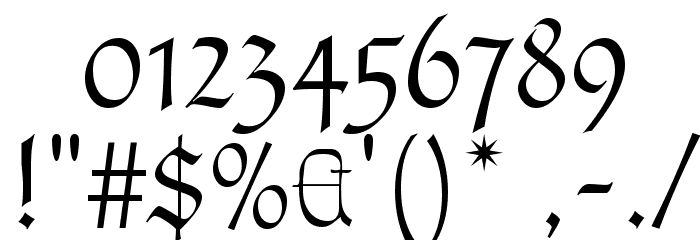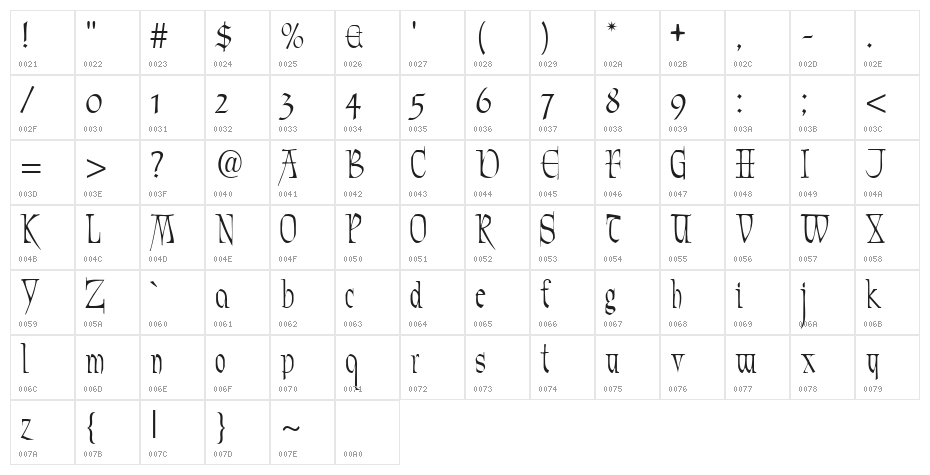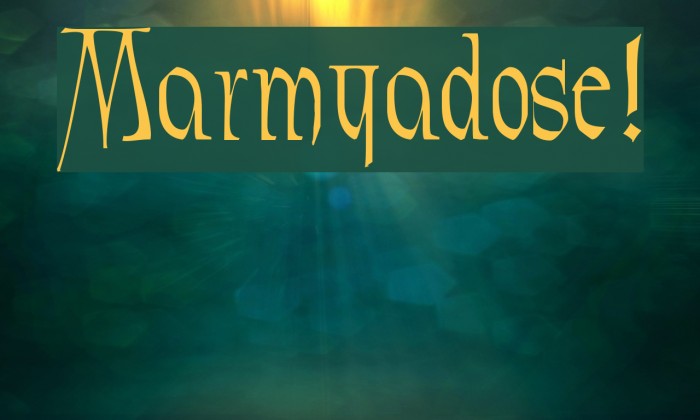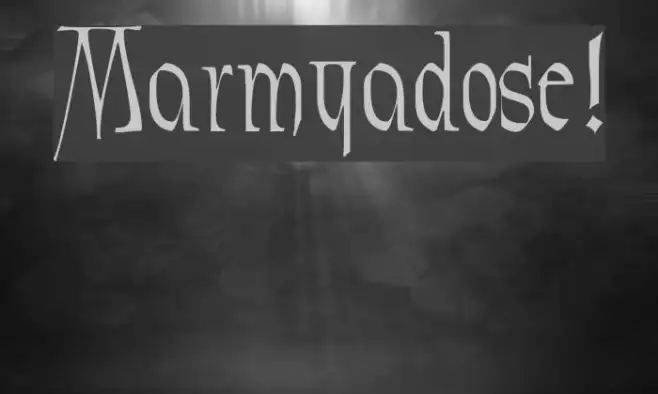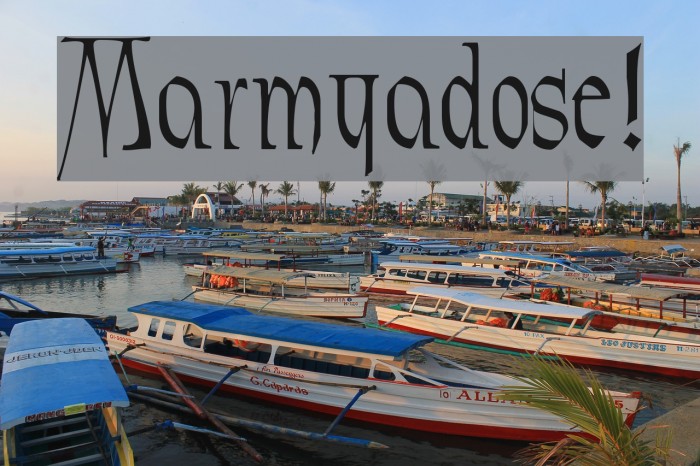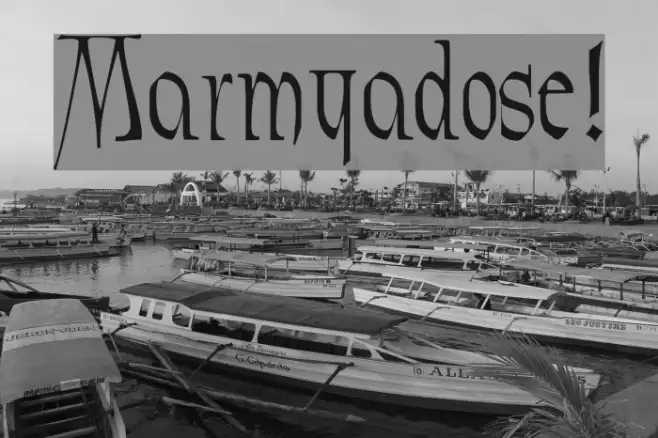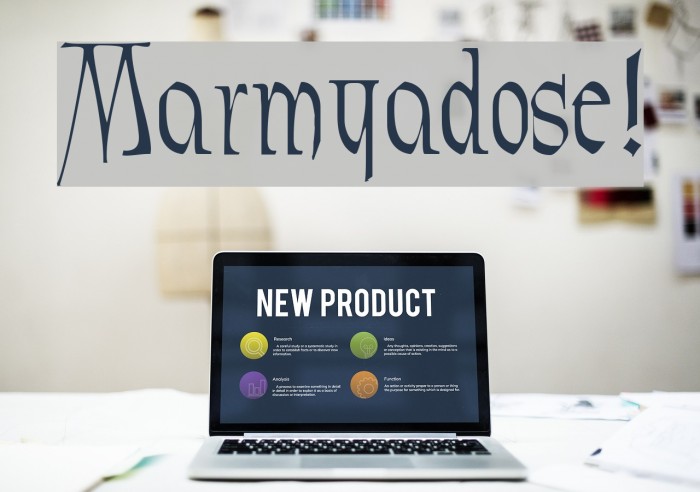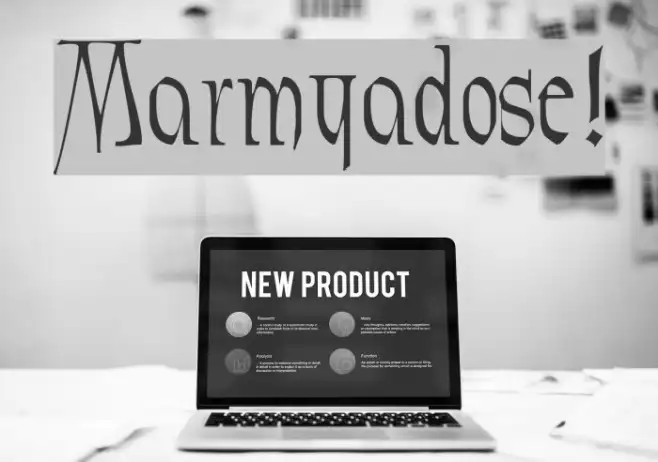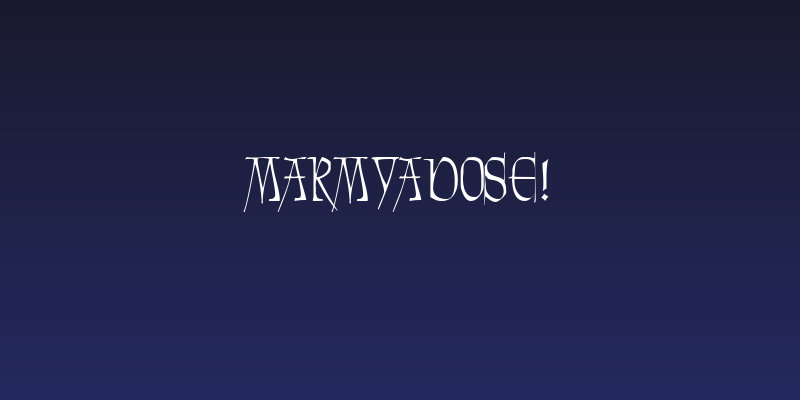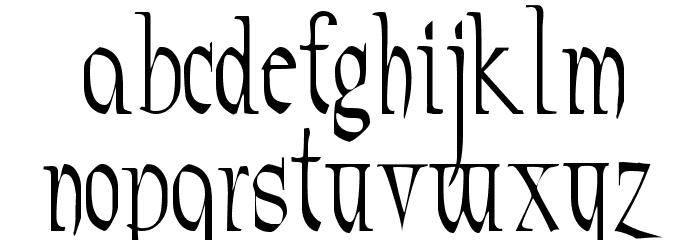
Marmyadose! Font
Marmyadose! Description
This font features a unique and artistic design with a blend of sharp angles and smooth curves. The uppercase letters have a distinct medieval or gothic influence, with elongated serifs and pointed edges that give them a dramatic flair. The lowercase letters maintain a consistent style, though they are more rounded and approachable. The numerals are bold and slightly condensed, ensuring readability while maintaining the font's overall aesthetic. Special characters are creatively designed, adding to the font's decorative appeal. The font's intricate details make it suitable for projects that require a touch of elegance and historical charm.